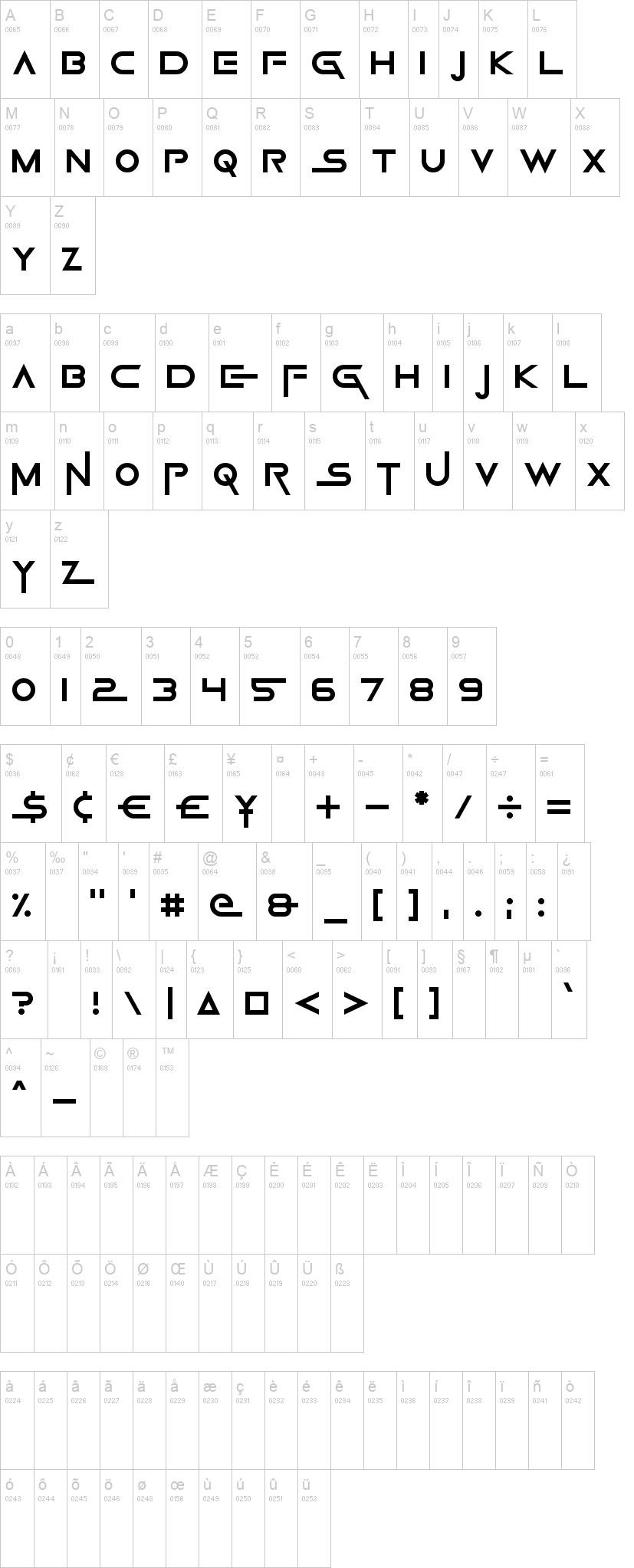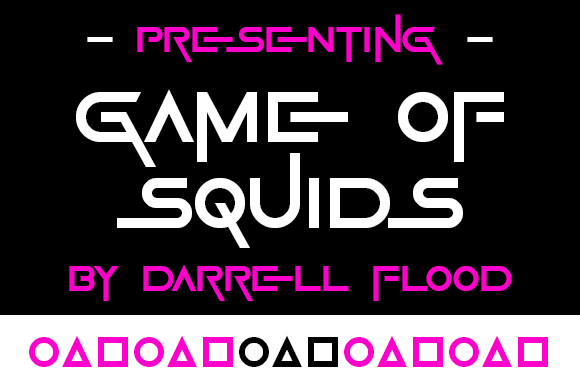
It is inspired by the "Squid Game" series logo.
Lowercase contains "stressed/elongated" characters.
Uppercase contains "normal" characters.
To get a circle, traingle and square shape, please use "o", "{", and "}"
Please use any mix of lower and uppercase to achieve your desired look!